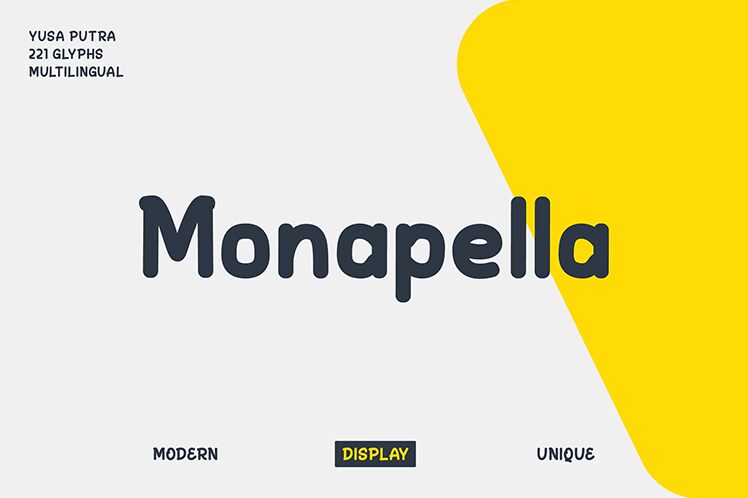
Monapella is a unique handwritten font designed by Yusa Putra. The font offers a beautiful and stylish look that's perfect for modern projects like invitations, logos, posters and more. Its cursive style makes it ideal for adding an elegant touch to any project.